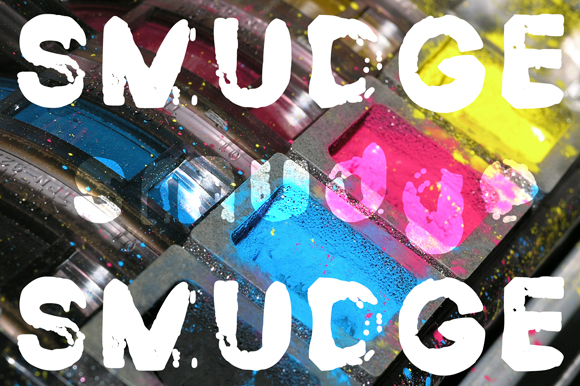
HomeScript FontsSmudge Font Script Fonts Smudge Font FacebookXPinterestWhatsApp About Smudge Font Ink inspired, messy, dirty looking font for display. DOWNLOAD NOW People also explored Capenhood Font Chicago Doodles Hardline Font Sunshine Memories Font Deen Haag Font Simple Signature Smilicious Font Rosemallie Font Maskuroh Font 270 0 TagsSmudge Font Previous articleBadriyah FontNext articleHarley Q Font LEAVE A REPLY Cancel reply Comment: Please enter your comment! Name:* Please enter your name here Email:* You have entered an incorrect email address! Please enter your email address here Website: Save my name, email, and website in this browser for the next time I comment. Personal Use Free The Most Beautiful Gift Personal Use Free Read more about this font Castina Personal Use Free Read more about this font Mahisya Personal Use Free Read more about this font 1313 Mockingbird Lane Personal Use Free Read more about this font BLOG To increase your work productivity, choose the most readable fonts. In today's fast-paced work environment, where digital communication and information consumption are integral to our daily routines, the choice of fonts can significantly impact... Transform Your Website: Elevate Your Typography with 7 Best Web Font Generators Modern Sans-Serif Fonts That Brands Love in 2025 Top 10 Handwritten Fonts That Elevate Your Designs